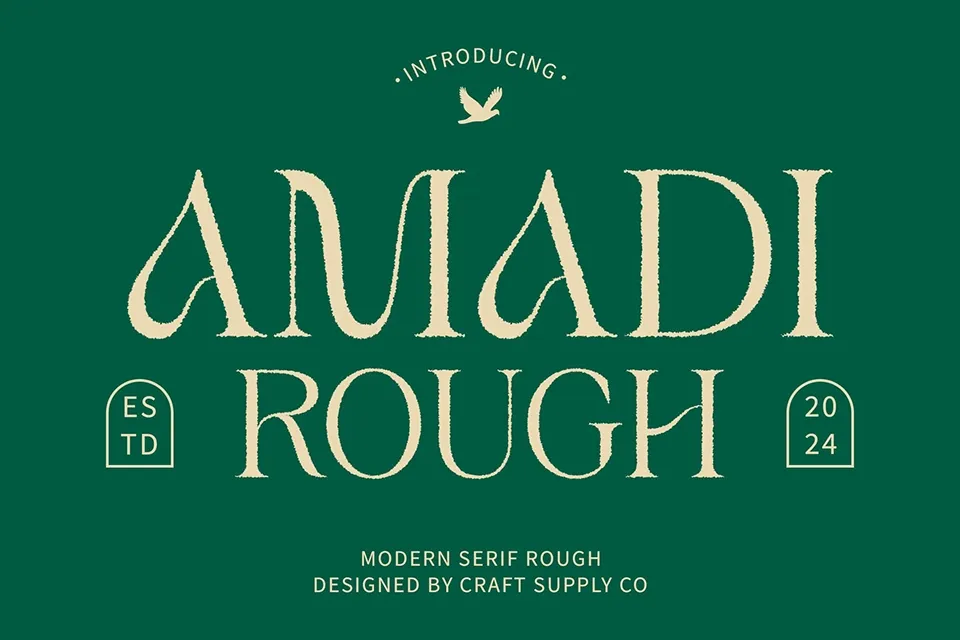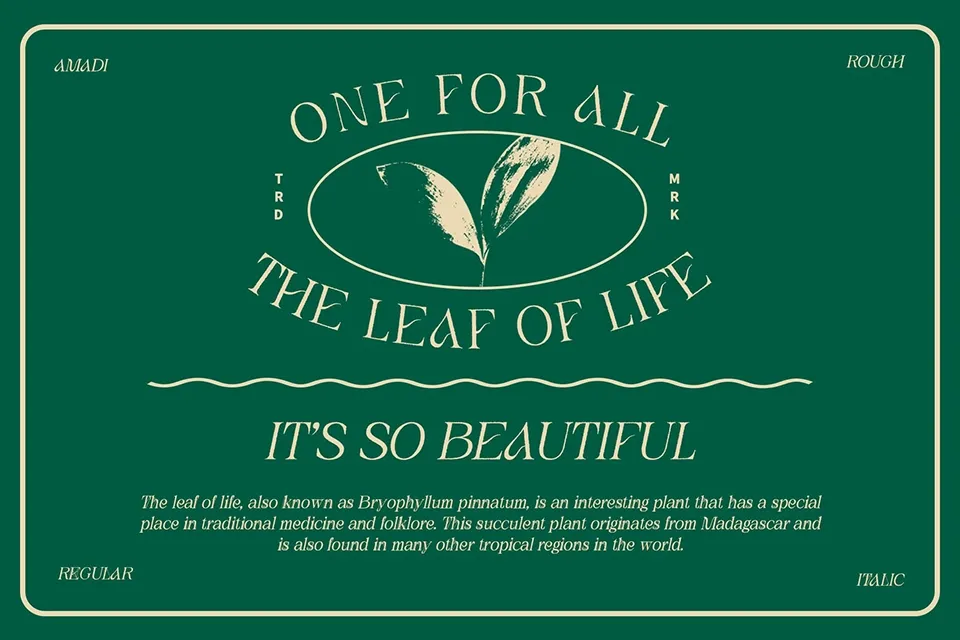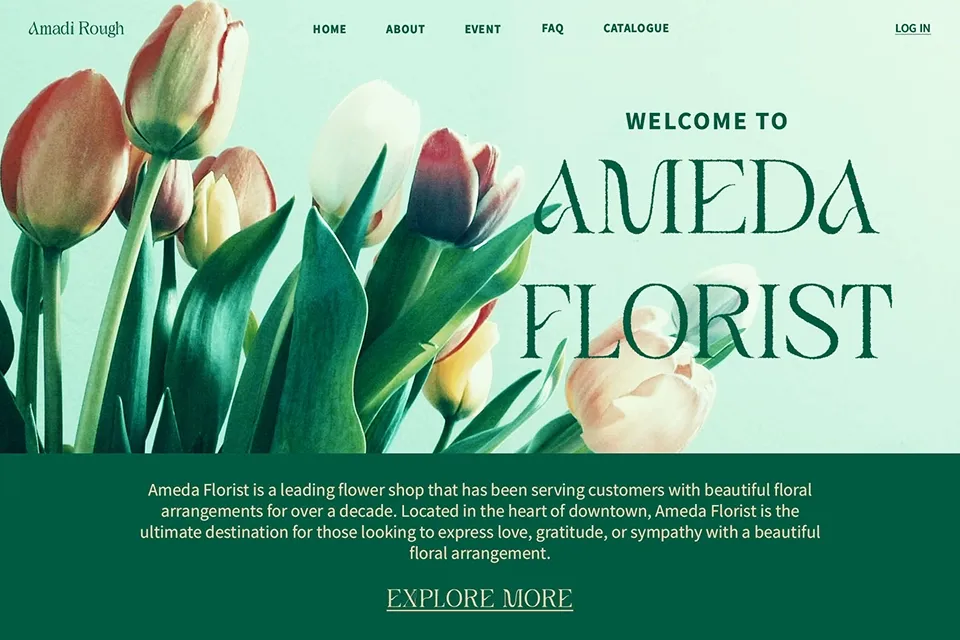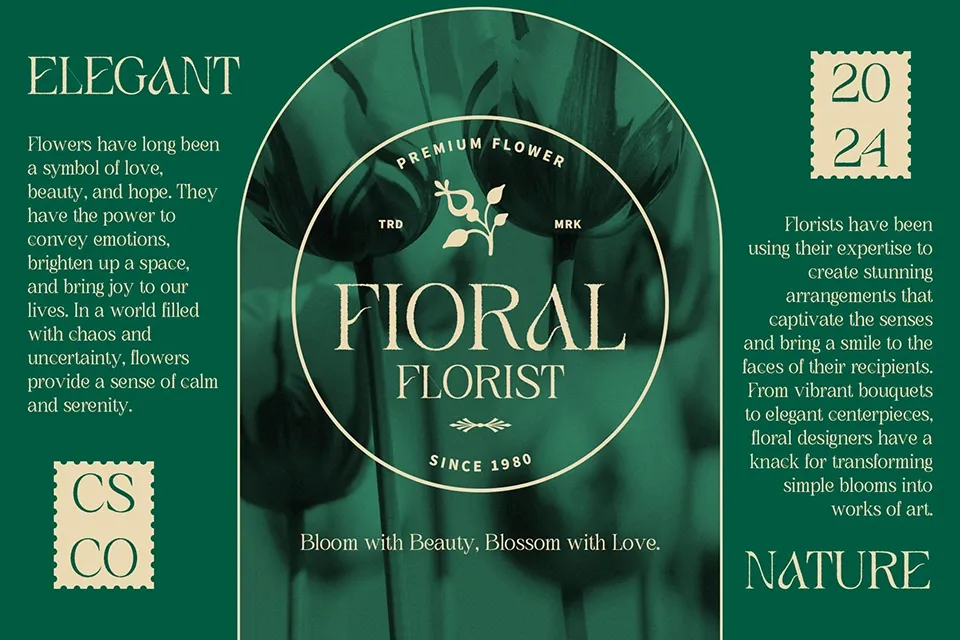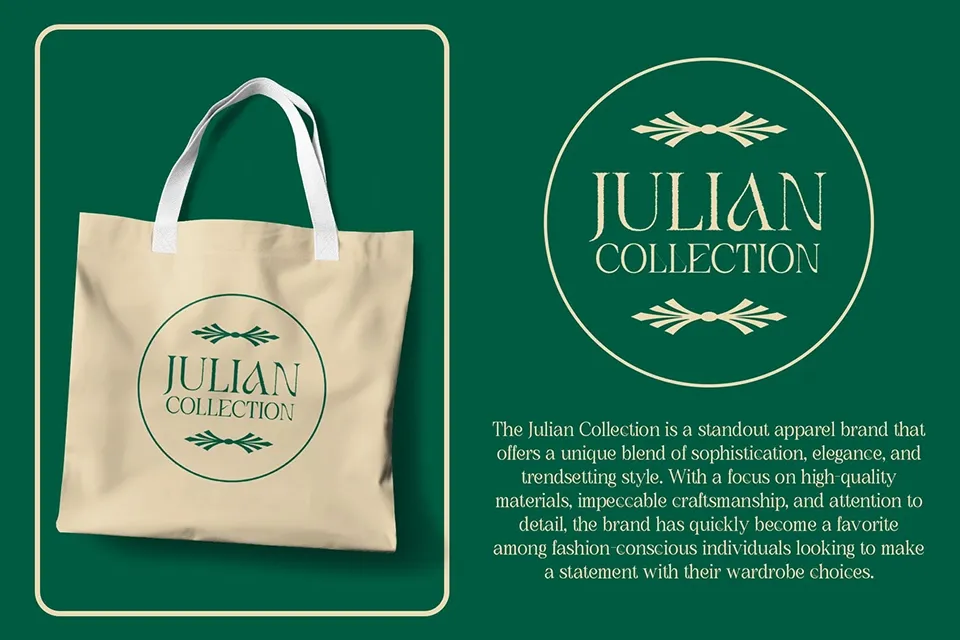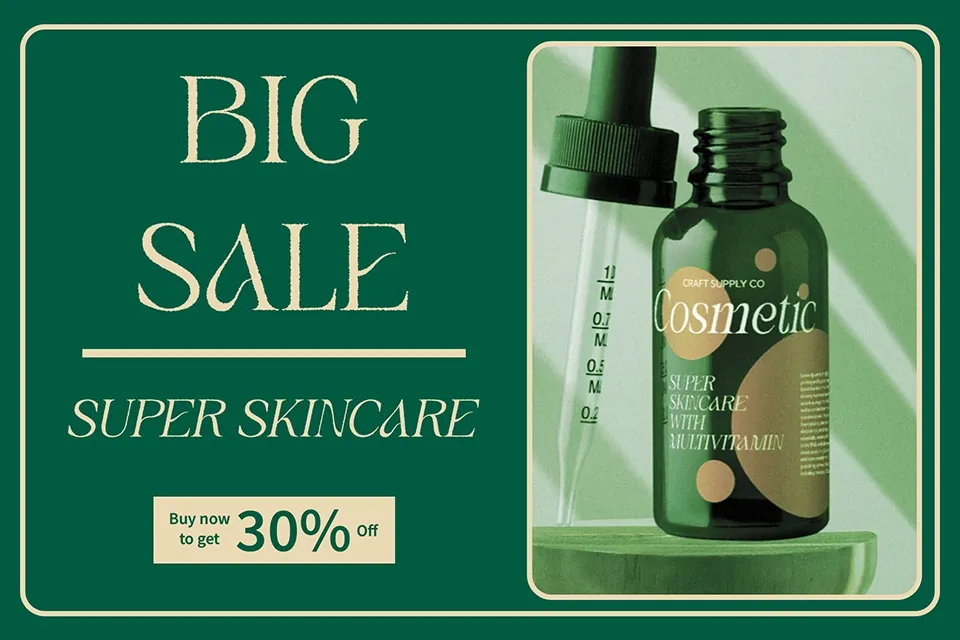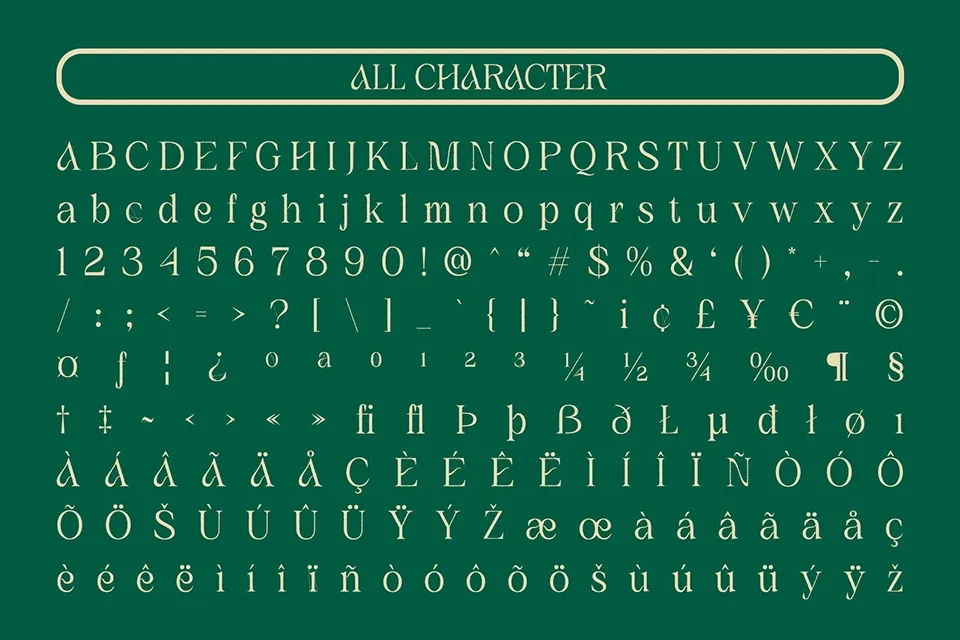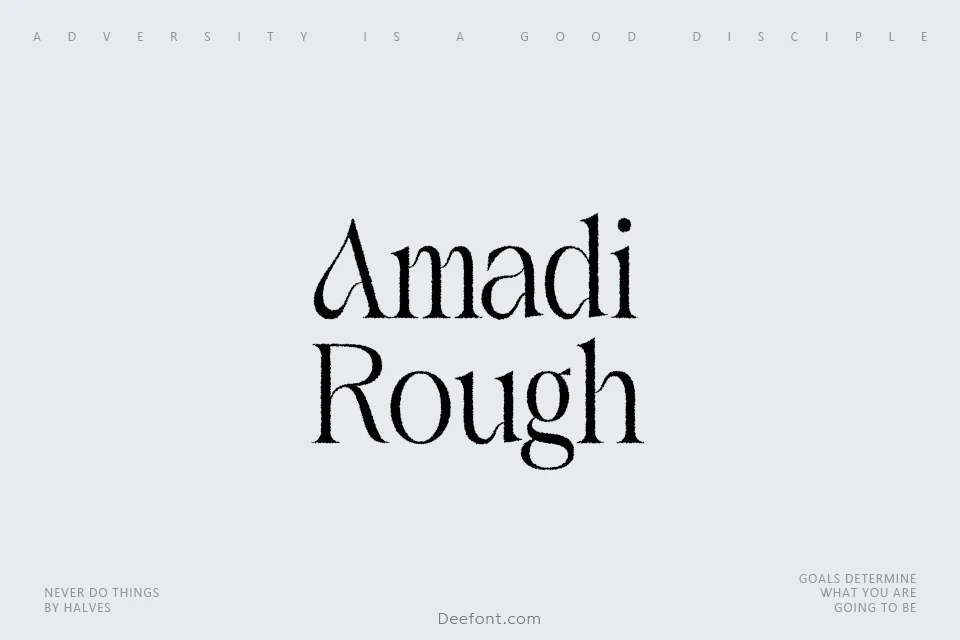
Amadi Rough Font
Amadi Rough Font is a modern serif typeface that blends elegance with a handcrafted, textured finish. Designed to evoke a sense of sophistication and artistry, this font is perfect for branding, packaging, editorial layouts, and creative projects that require a timeless yet distinctive look. The rough edges and subtle imperfections add character, making it ideal for designs that aim to stand out with a touch of authenticity. Whether used for bold headlines or refined accents, Amadi Rough delivers versatility and charm. Elevate your designs with this unique serif font and create visuals that are both captivating and memorable.